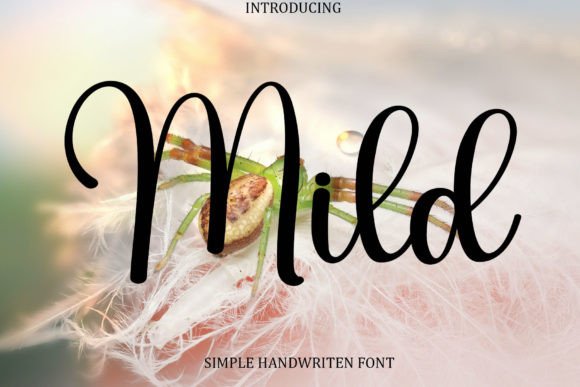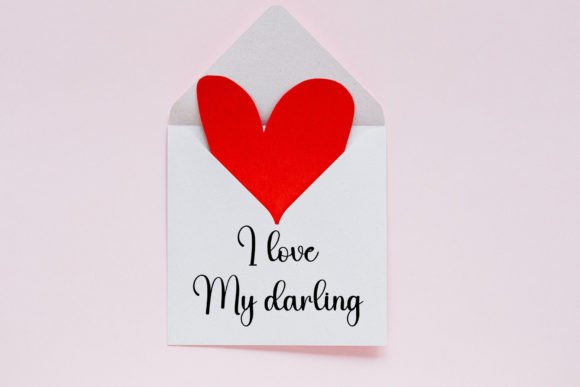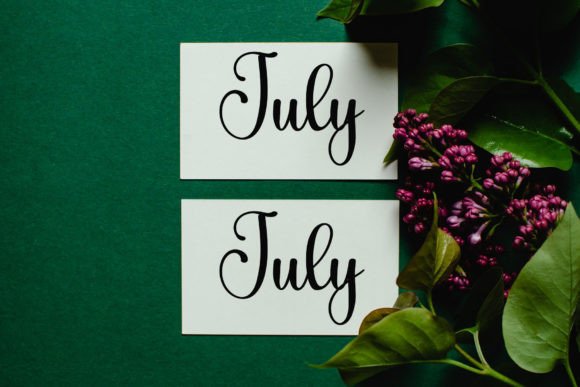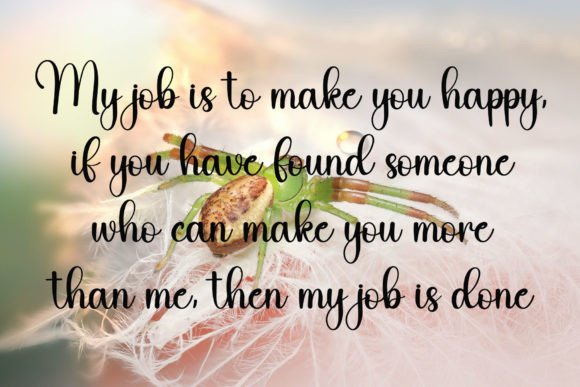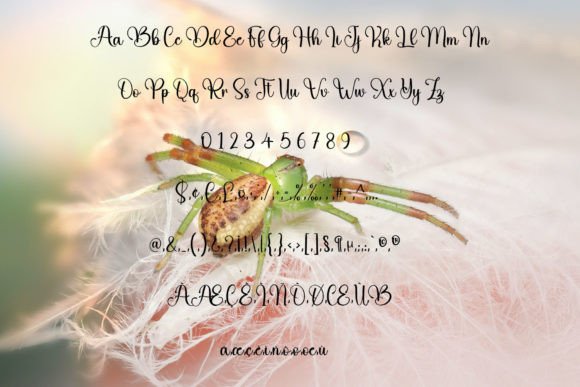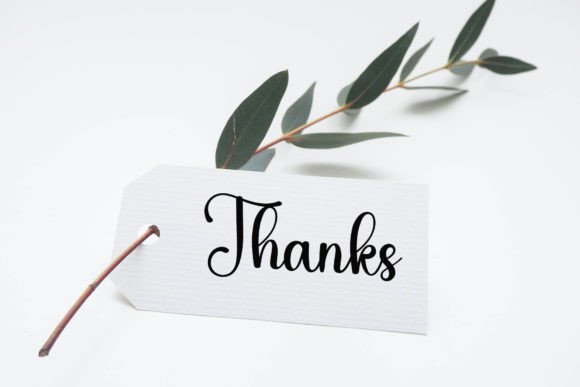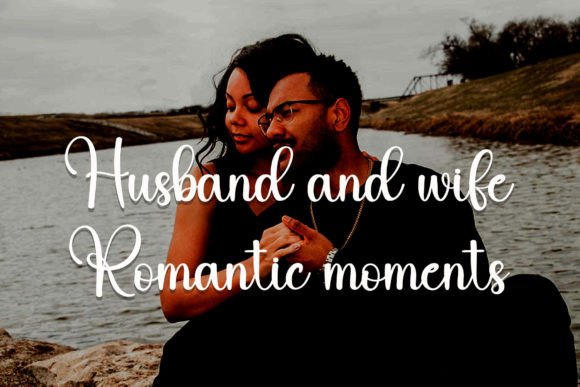
Mild Font
About Mild Font
Mild, a delightful and charming handwritten font, introduces a touch of sweetness and beauty to your creative endeavors. With characters that gracefully dance along the baseline, this font is more than just a typeface—it’s a design element that injects a luxurious spark into any project you wish to undertake.
The inherent sweetness of Mild is immediately apparent, making it a perfect choice for projects that demand a soft and inviting aesthetic. The handwritten quality of the font imparts a sense of warmth and personalization, creating an engaging and intimate connection with your audience.
What sets Mild apart is the playful dance of its characters along the baseline. This dynamic feature adds a unique flair to the font, contributing to its overall visual appeal. The characters seem to move with a light and elegant rhythm, infusing a sense of liveliness into your design projects.
Mild’s ability to add a luxury spark to your designs makes it a versatile tool for various applications. Whether you’re working on invitations, branding materials, or any creative project that requires a touch of sophistication, Mild rises to the occasion, elevating the overall aesthetic with its inherent charm.
As a handwritten font, Mild goes beyond mere letters on a page; it becomes a part of the narrative you’re crafting. It has the power to convey emotions, tell stories, and create memorable visual experiences for your audience. Its beauty lies not just in its characters but in the atmosphere it creates, transforming your design projects into elegant and captivating expressions.
In summary, Mild is not just a font; it’s a design companion that brings sweetness, beauty, and a touch of luxury to your creative toolkit. Let Mild be the spark that enhances your projects, making them stand out with a distinctive and charming allure.